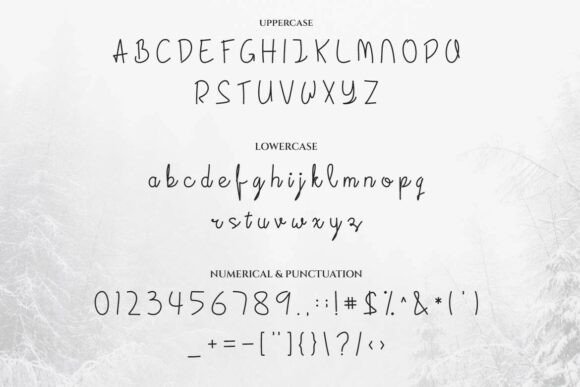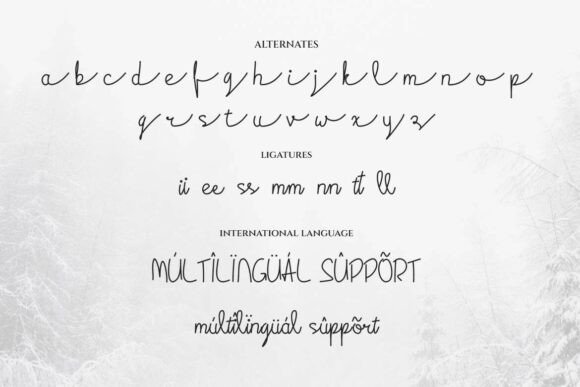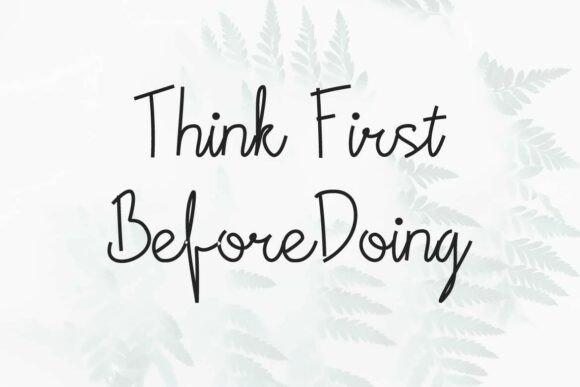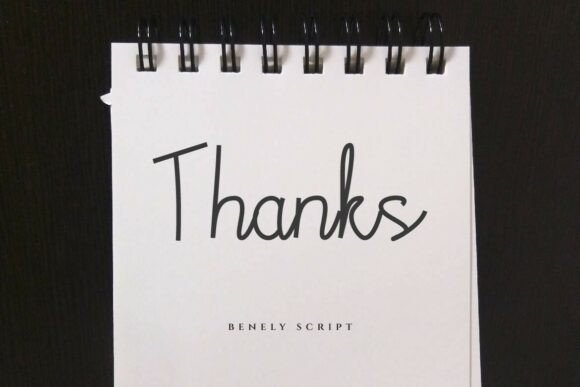
Introducing Benely Font: The Epitome of Modern Calligraphy
In the realm of typography, few fonts manage to capture the essence of modern calligraphy as elegantly as Benely Font. This sophisticated script font is a masterpiece that blends the softness and flow of traditional calligraphy with a contemporary twist, making it an ideal choice for designers and crafters looking to infuse their projects with a touch of romance and refinement.
The Essence of Benely Font
Benely is more than just a font; it’s an experience. It embodies the beauty of handwritten calligraphy, with its soft, flowing lines that dance across the page. This font is meticulously designed to evoke a sense of elegance and sophistication, making it perfect for a variety of applications, from wedding invitations and branding to greeting cards, social media posts, and packaging.
Benely Font boasts several design characteristics that set it apart from other script fonts:
- Soft and Flowing Lines: The font features gentle, flowing lines that give it a dynamic and organic feel, reminiscent of hand-written calligraphy.
- Romantic and Refined: Benely strikes the perfect balance between romance and refinement, making it suitable for projects that require a personal yet polished touch.
- Versatility: Whether you’re designing wedding invitations, crafting brand identities, or creating engaging social media content, Benely adapts seamlessly to various design needs.
Applications of Benely Font
The versatility of Benely Font makes it an invaluable asset for designers and crafters. Here are some of the many applications where Benely truly shines:
- Wedding Invitations: Add a touch of elegance and romance to your wedding invitations, making the occasion even more special for the couple.
- Branding: Elevate your brand’s identity with a sophisticated and modern aesthetic that sets you apart from the competition.
- Greeting Cards: Create heartfelt and visually appealing greeting cards for various occasions, from birthdays to anniversaries.
- Social Media Posts: Enhance your social media content with a dash of elegance, making your posts stand out in crowded feeds.
- Packaging: Give your products a premium feel with beautifully designed packaging that reflects your brand’s personality.
Why Choose Benely Font?
In a sea of fonts, Benely stands out for several reasons:
- Unique Aesthetic: Benely offers a unique blend of modern calligraphy and traditional softness, making it a rare find in the world of typography.
- Emotional Connection: The font’s romantic and refined nature helps create an emotional connection with the audience, making your designs more impactful.
- High Versatility: Its adaptability to various design projects makes Benely a valuable addition to any designer’s toolkit.
Benely Font is a game-changer for designers and crafters seeking to infuse their projects with a touch of modern calligraphy’s elegance and charm. Its unique blend of soft, flowing lines and refined aesthetic makes it the perfect choice for a wide range of applications. Whether you’re aiming to create romantic wedding invitations, sophisticated brand identities, or engaging social media content, Benely is the ideal companion for your creative journey. Embrace the beauty of Benely Font and elevate your designs to new heights of elegance and sophistication.